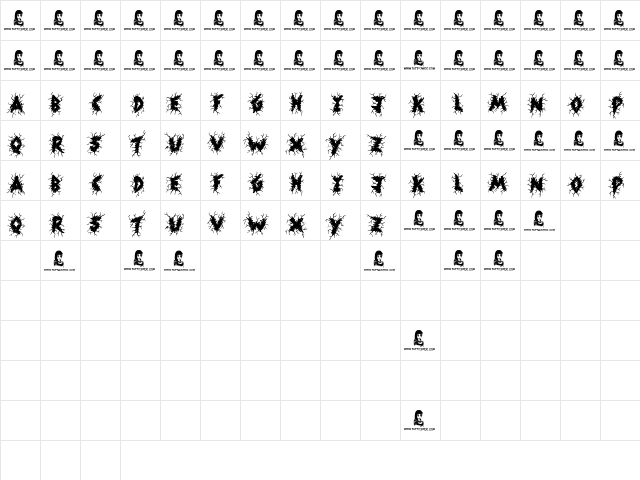
Shock Horror Regular
| Foundry | Jonathan S. Harris |
| Designer | Jonathan S. Harris |
Design Context for Shock Horror Typeface
Shock Horror leans into the macabre with letterforms designed to disturb and intrigue in equal measure.
Perfect for anything that needs to unsettle — game titles, horror branding, and macabre invitations.
Font Pairing: Pair with a clean neutral sans-serif for body copy to let Shock Horror's character lead without overwhelming the composition.
Pro Tip: Use Shock Horror at larger display sizes for maximum impact. Consider generous tracking to let the disturbing character of each letterform breathe.